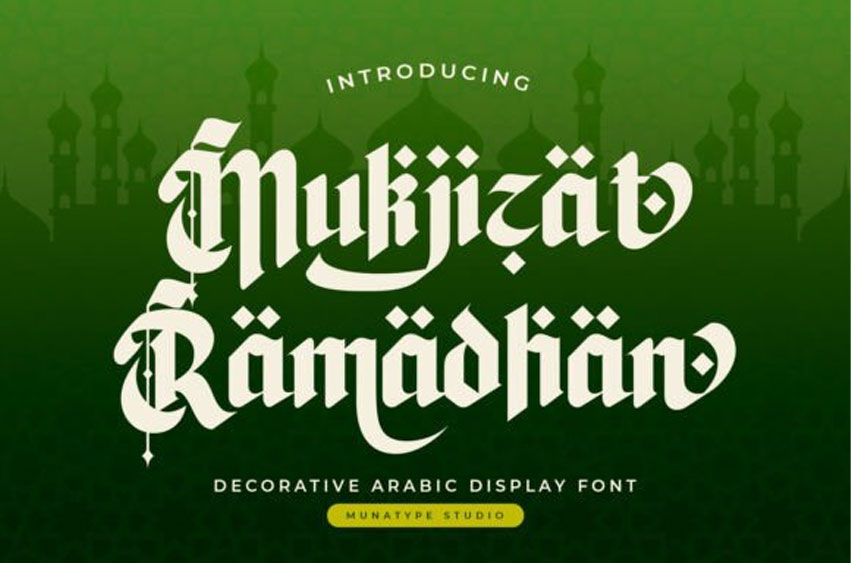
Mukjizat Ramadhan Font: Immerse yourself in the beauty of Islamic artistry with Mukjizat Ramadhan, a captivating handwritten and calligraphic font designed to embody the spirit of Ramadan, Eid al-Fitr, Eid al-Adha, Islamic New Year, Maulid, and other sacred occasions. With elegant curves, refined strokes, and over 100 alternate characters, this font brings a deep sense of authenticity to your creative work, merging tradition with modern design.
Perfect for graphic designers, branding professionals, and content creators, Mukjizat Ramadan is ideal for Ramadan-themed invitations, social media graphics, Islamic merchandise, mosque event posters, and festive greeting cards. Whether for personal inspiration or professional projects, this font delivers a spiritual and sophisticated atmosphere that resonates across the Muslim world.
Mukjizat Ramadan ensures maximum impact on digital platforms, making it a top choice for Islamic typography, Arabic-inspired calligraphy fonts, Ramadan and Eid designs, and handwritten Islamic-style fonts. With smooth stylistic alternates and extensive multilingual support, this font unlocks limitless design possibilities for every Islamic celebration.